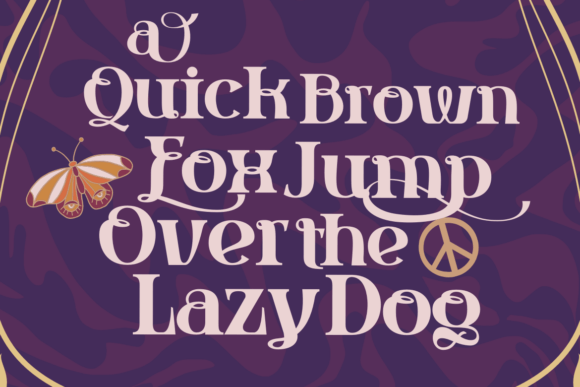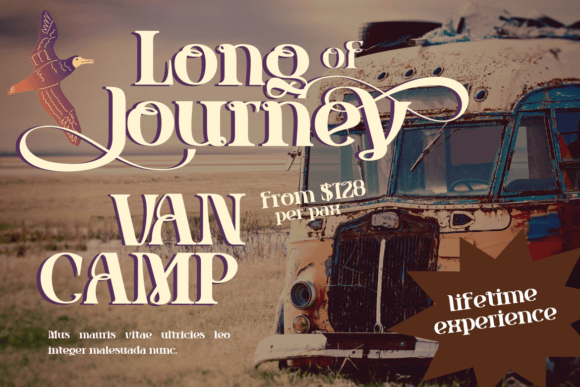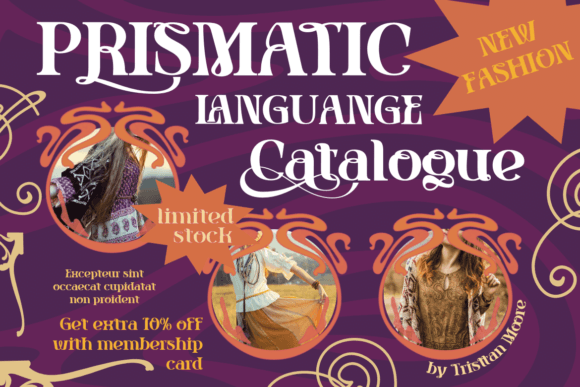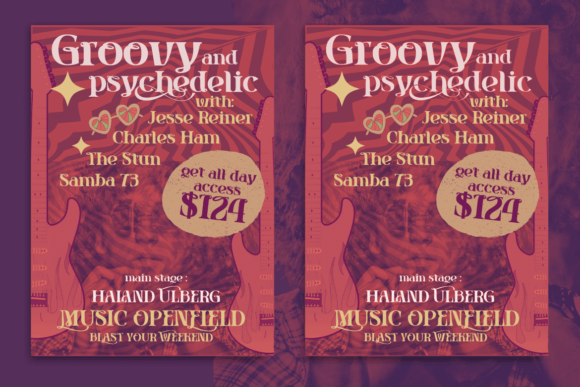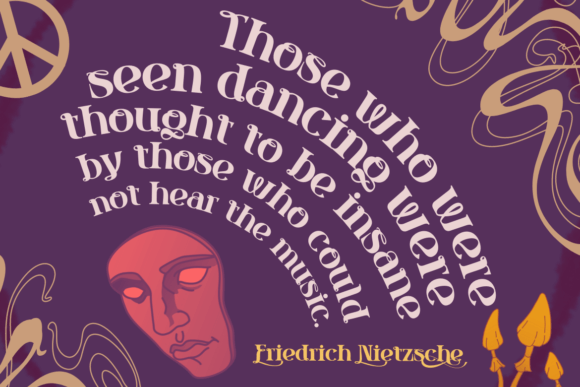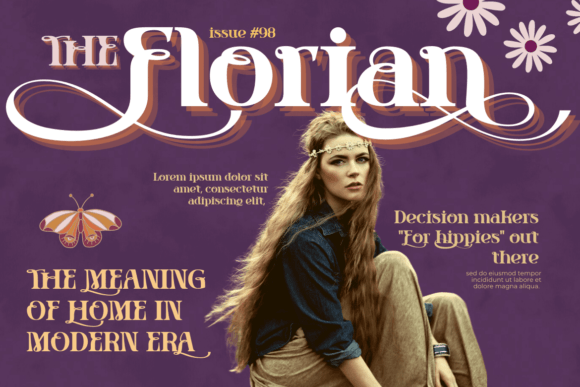
Introduction to Kaonug Font
Kaonug is a cool display font that will make your work stand out.
It brings just the right amount of uniqueness and style to whatever project youโre working on This is a great font to use when creating logos, posters, advertisements, and all your projects or anything else that needs to stand out in a variety of media.
Kaonug Font offers exceptional quality and versatility, making it a valuable addition to your design toolkit. Whether you’re creating for personal projects or commercial use, Kaonug Font delivers professional results.